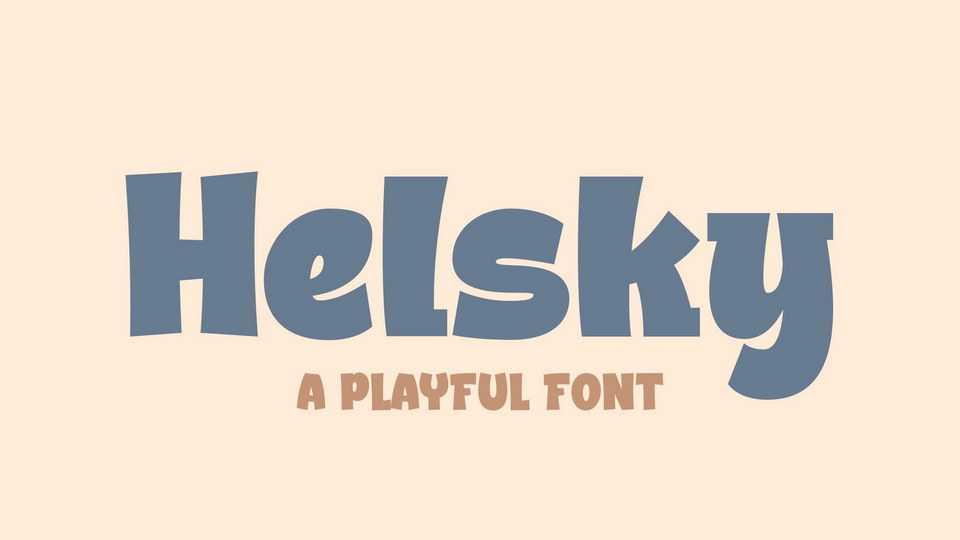
Download Helsky font, a fun and playful display typeface. Whether you use it for cartoon related designs, children games or just any creation that requires a cute touch, Helsky will be a lovely choice.
Designer: Blankids Studio